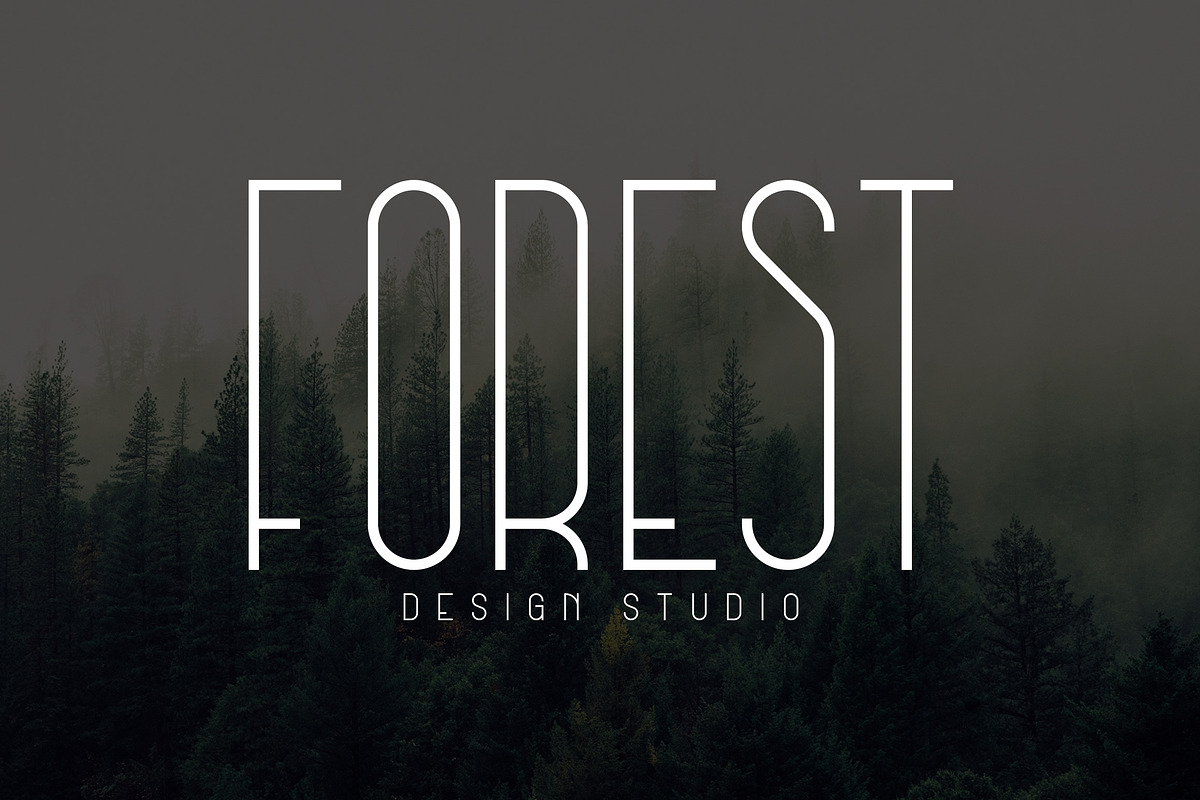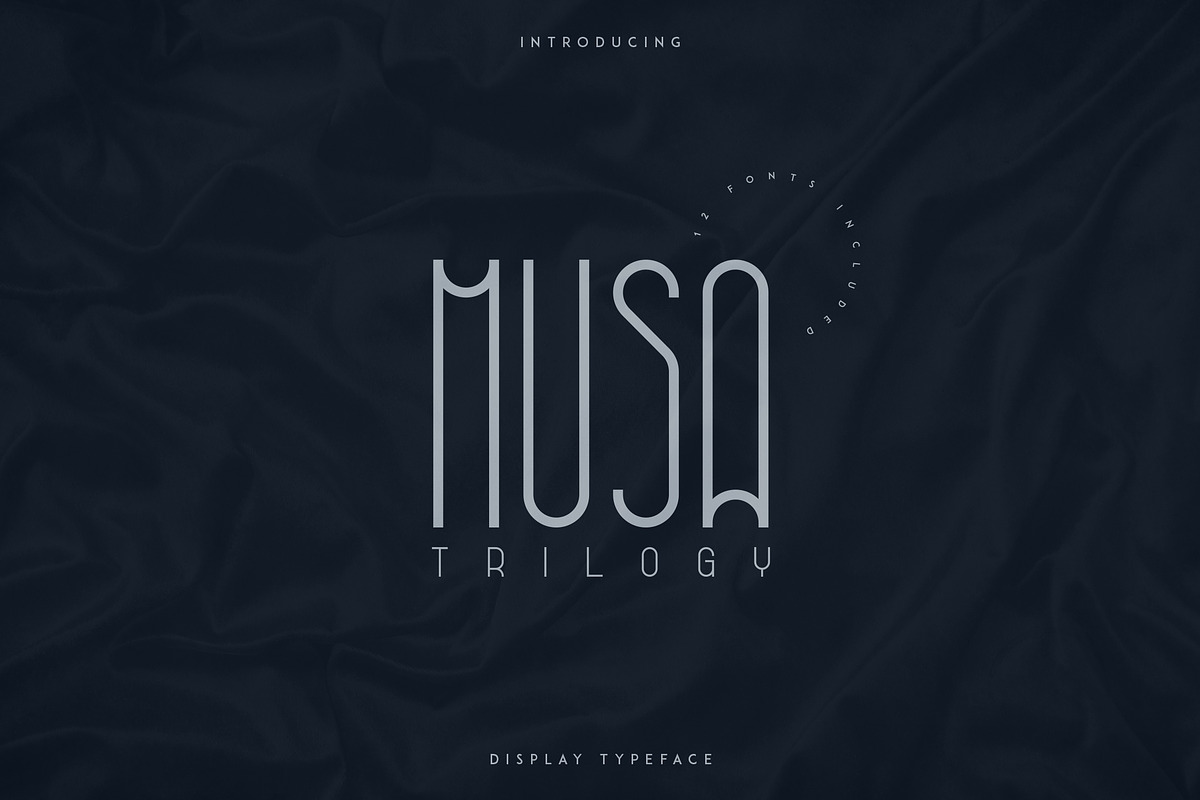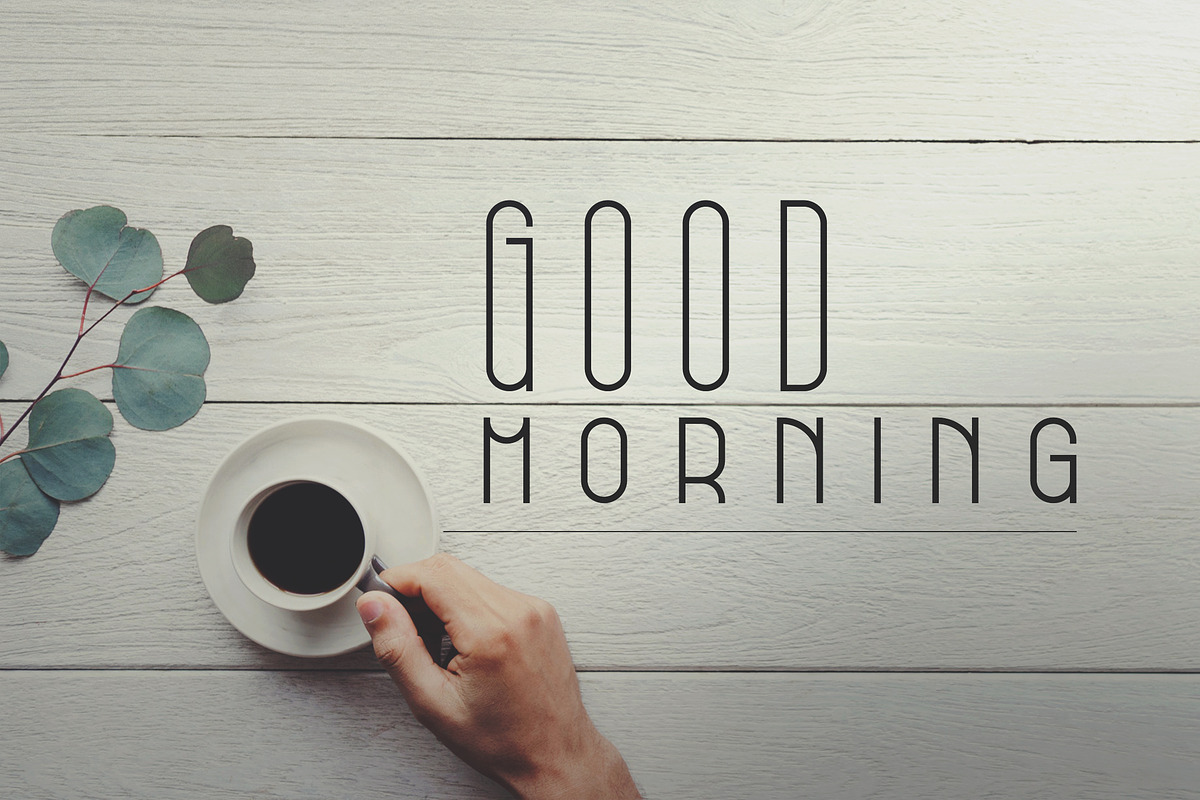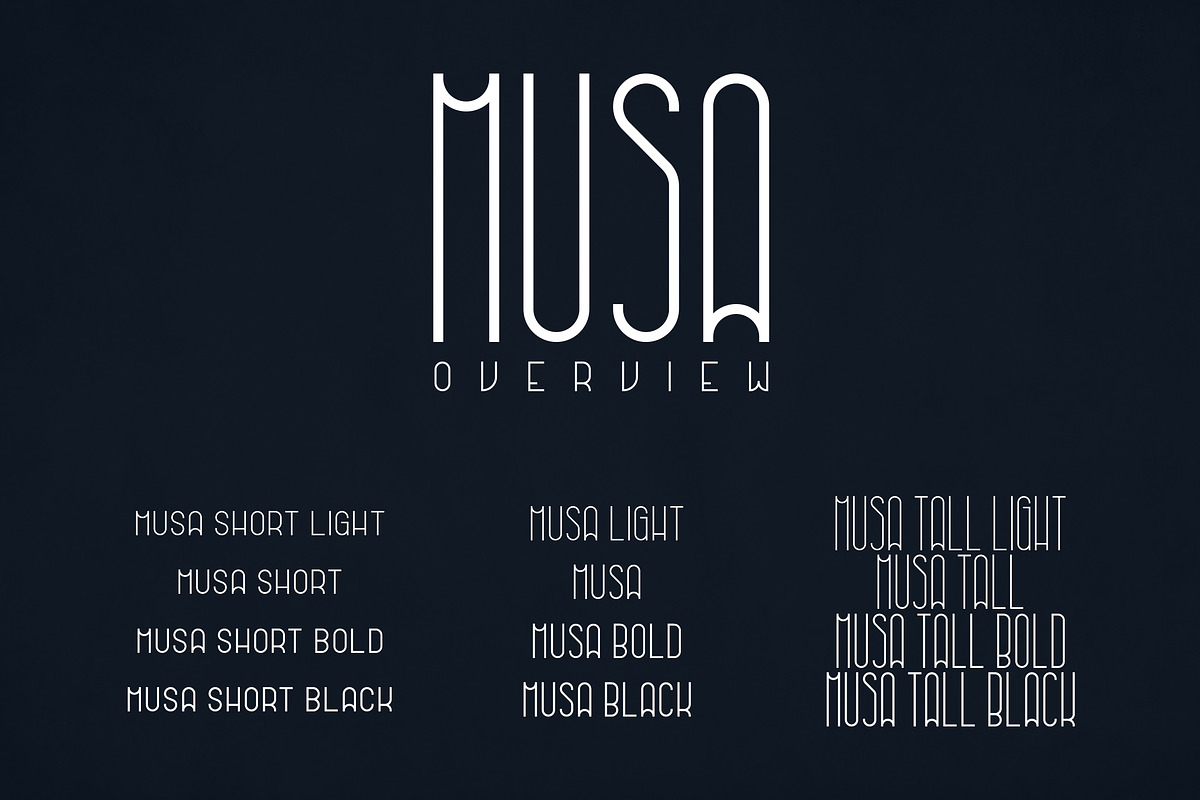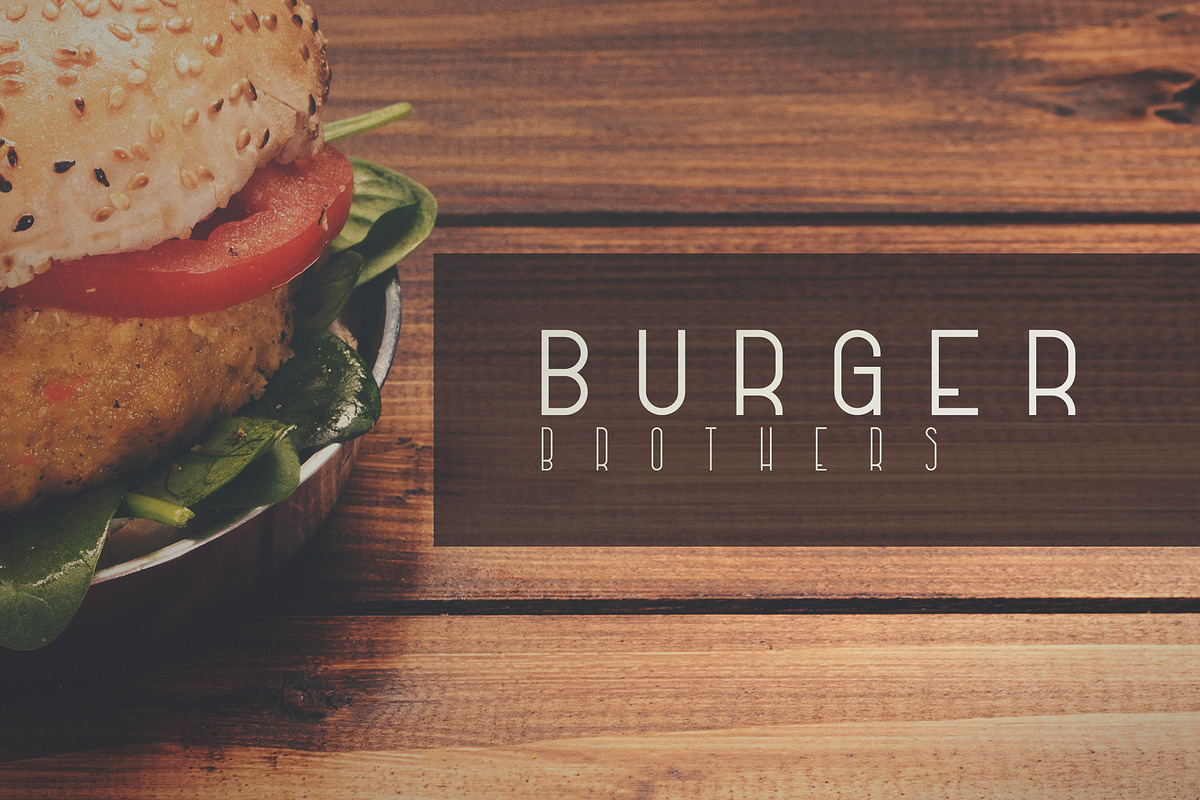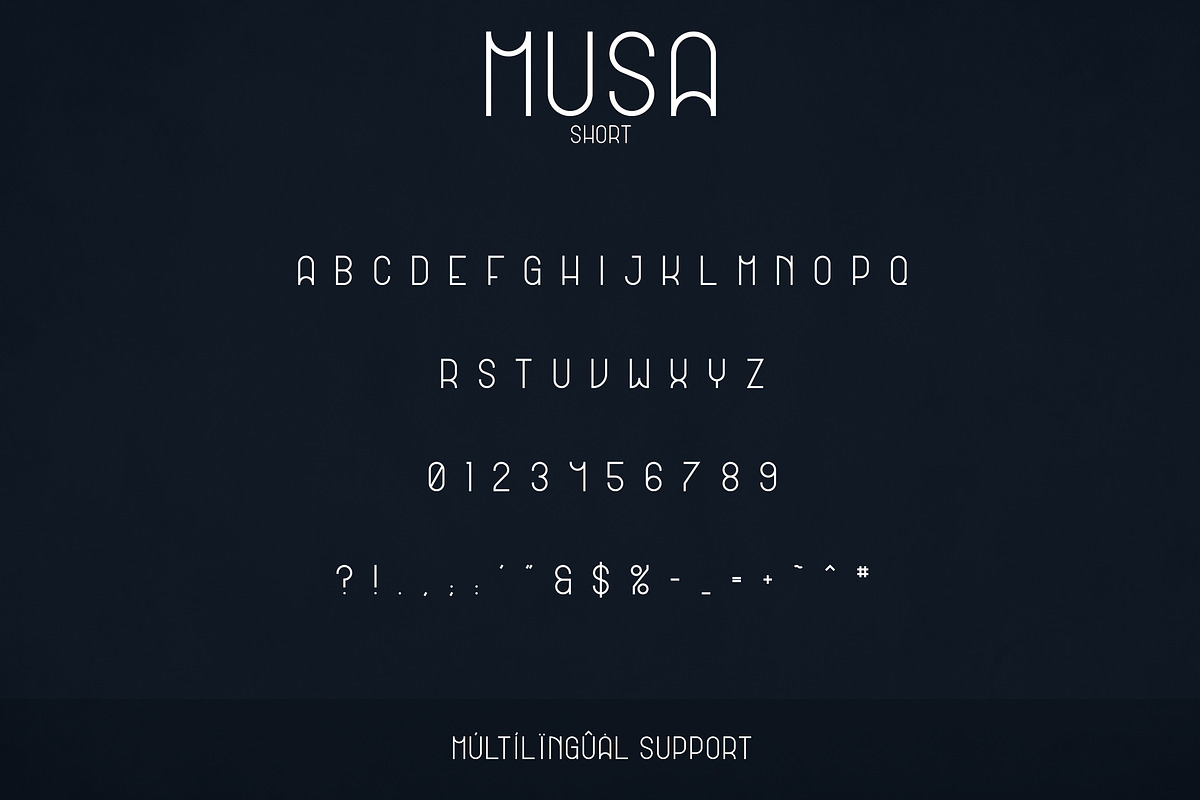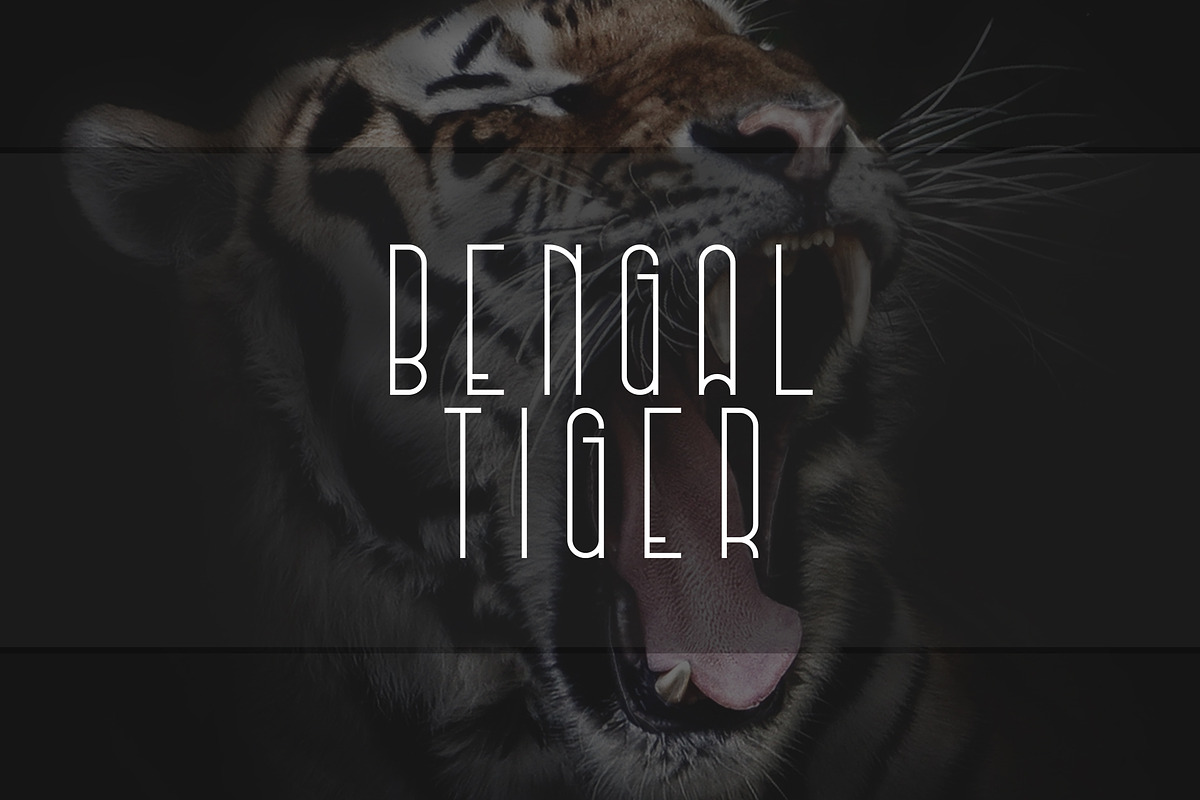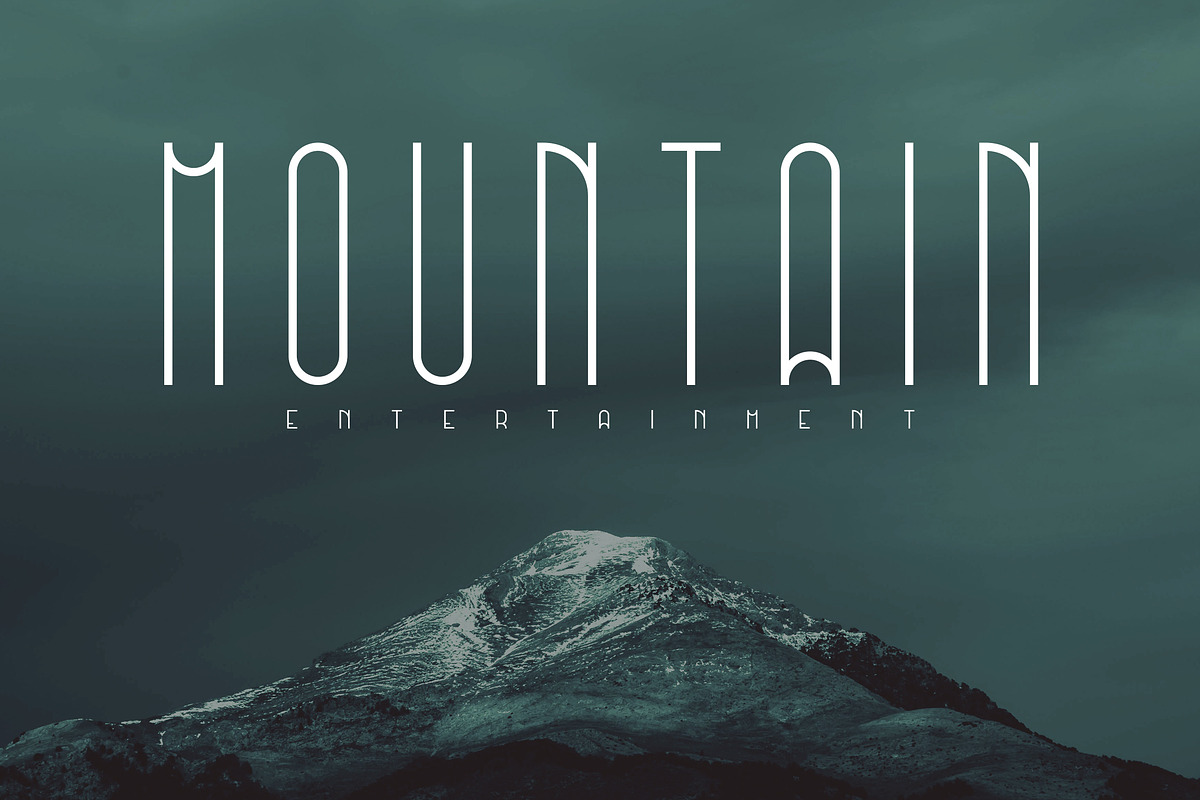
Musa Display Typeface - 12 fonts
Musa is clean, tall typeface with 12 fonts and multilingual support. It's a very versatile font that works great in large and small sizes.
Musa is perfect for branding projects, home-ware designs, product packaging, magazine headers - or simply as a stylish text overlay to any background image.
Uppercase,numeral,punctuation & Symbol